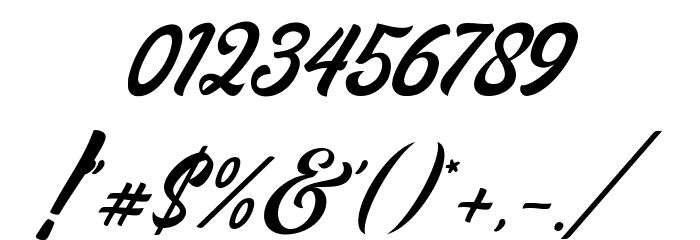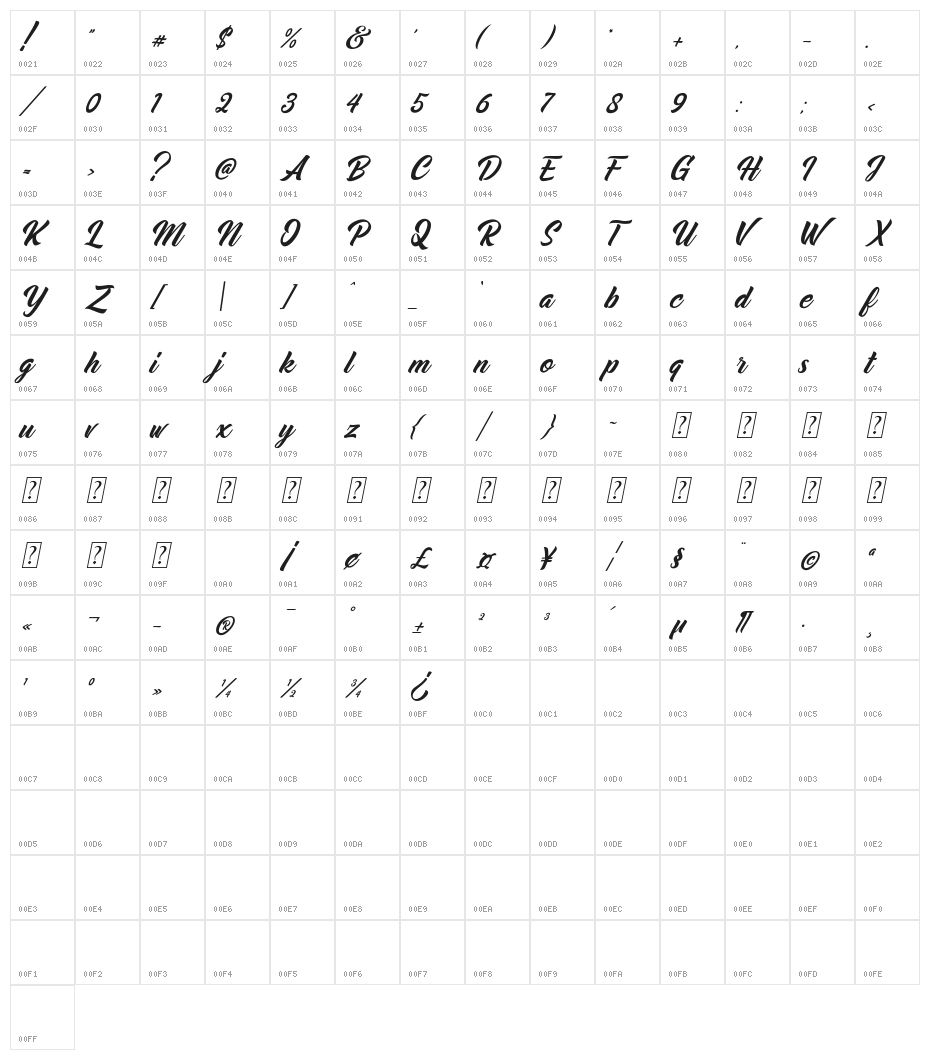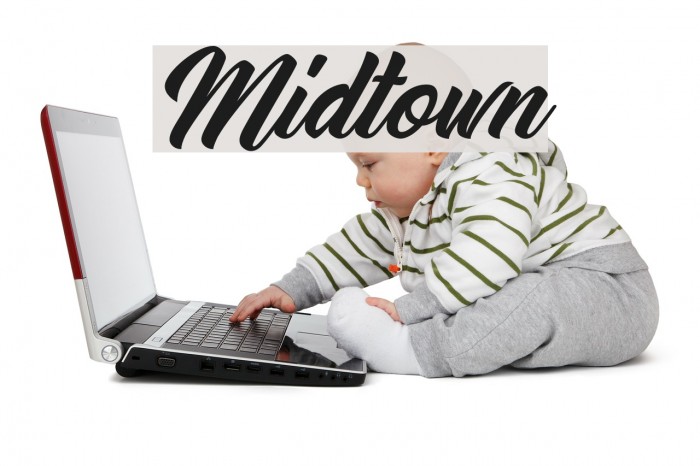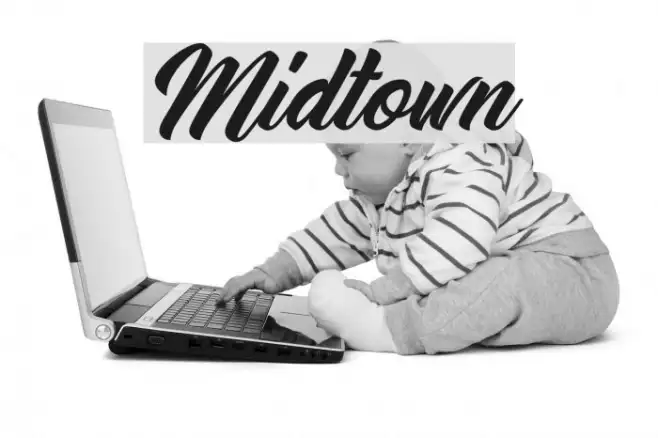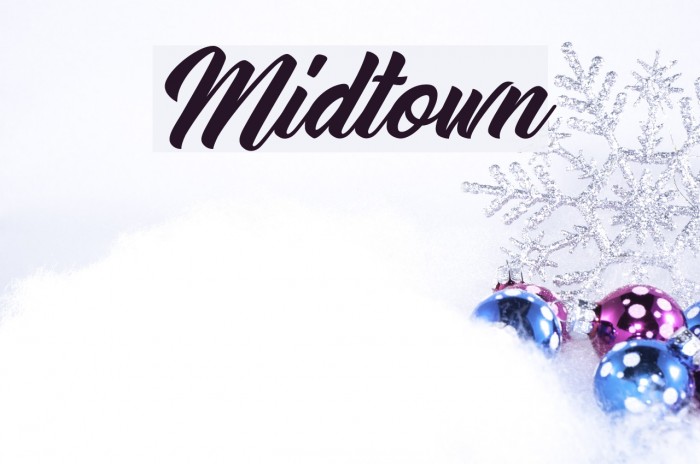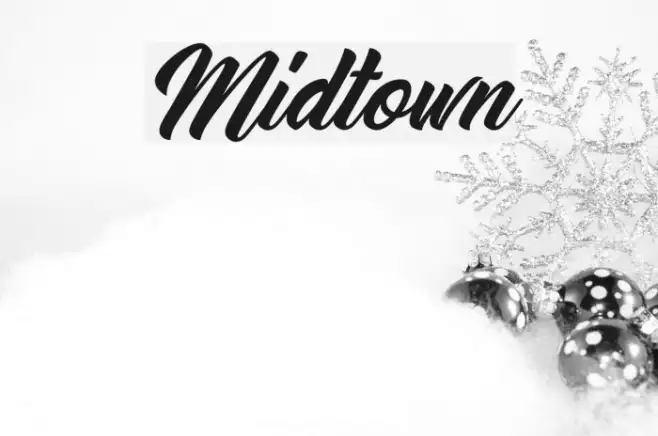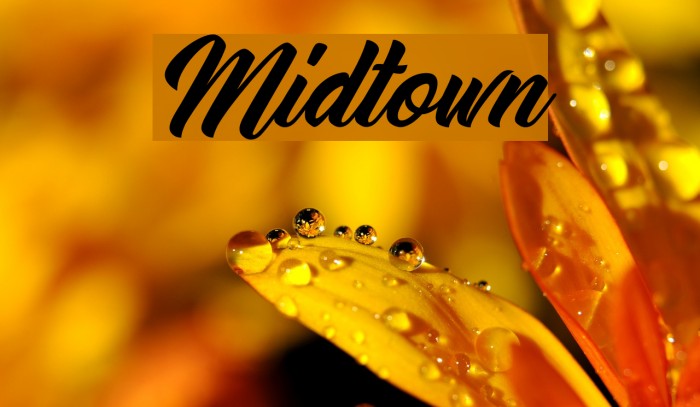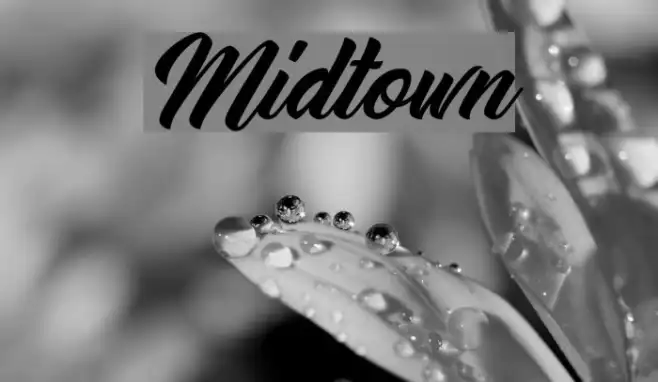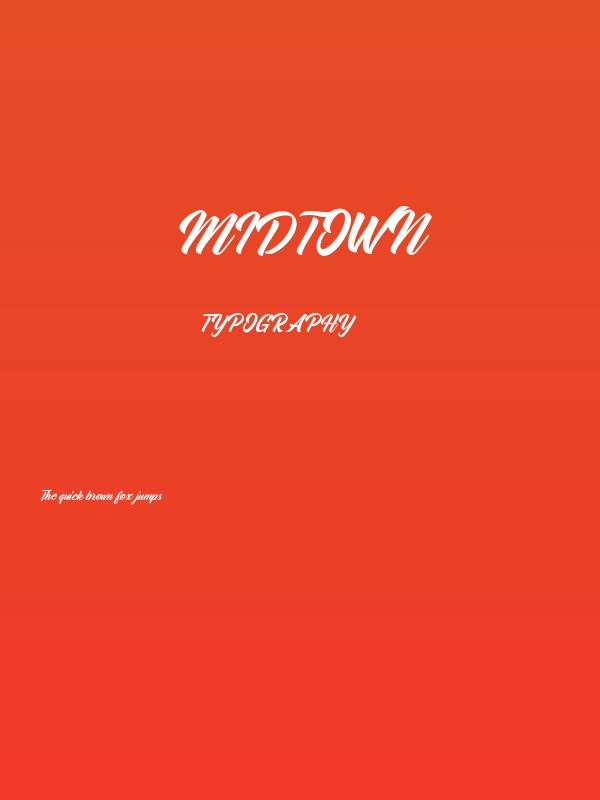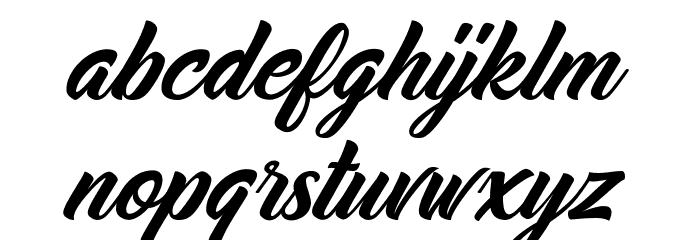
Midtown Font
Midtown Description
This font features a bold, cursive style with a strong emphasis on fluidity and elegance. The characters are interconnected, creating a seamless flow that is both dynamic and sophisticated. The strokes are thick and consistent, providing a sense of strength and confidence. The uppercase letters are particularly striking, with dramatic flourishes that add a touch of flair. The lowercase letters maintain the same level of elegance, with smooth curves and a harmonious balance. The numerals and special characters are equally well-crafted, ensuring a cohesive look across all text elements. This font is ideal for projects that require a touch of sophistication and style.
| Proposed Projects | Ideal for wedding invitations, luxury branding, elegant signage, and stylish logos. |